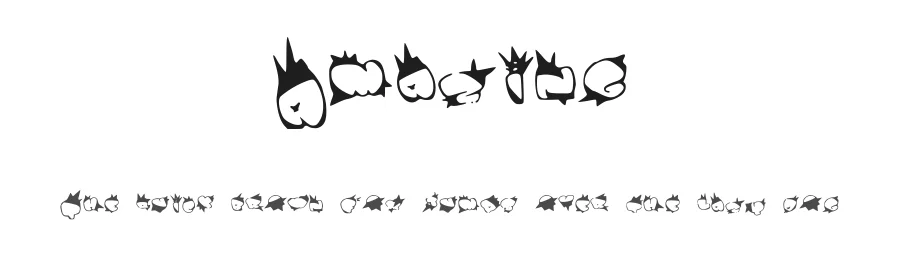
About Tweaked Font
Tweaked is a decorative font designed by Smiley Helper. It includes 236 glyphs, a regular weight, TTF (TrueType) format, and 209 languages. Tweaked is free to download; check the license details on this page before commercial use. Decorative fonts like Tweaked work best for logos, posters, packaging, and standout headlines.
Tweaked Font is a decorative font that shines as a display or heading face. Pair it with a clean sans-serif or serif font for body text β the contrast creates a clear hierarchy while the two styles stay balanced and easy to read.
Tweaked Font
Tweaked Font is a decorative typeface by Smiley Helper, ideal for logos, invitations, branding, and creative projects.